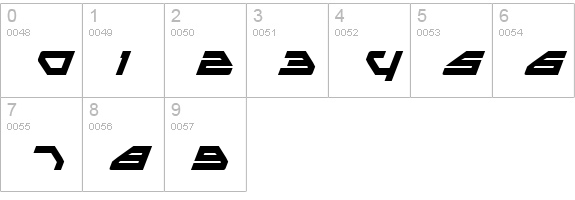
Spylord Bold Italic is a strong, high-contrast, italic variant in the Spylord typeface family \xE2\x80\x94 well suited to headlines, attention-grabbing titles, and strong calls-to-action.
Spylord Bold Italic font is a stunning display font that exudes power, strength, and a touch of mystery. This font is perfect for those seeking to make a bold statement with their design projects. Its bold and slanted letters command attention and convey a sense of authority. With its sleek and stylish design, Spylord Bold Italic font is versatile and can be used in a variety of creative projects. Whether you're designing a logo, creating eye-catching headlines, or crafting a poster, this font will add a touch of elegance and sophistication to your work. But what sets Spylord Bold Italic font apart is that it is not only visually captivating but also freely available to download at FontsMarket.com. This means that you can enhance your designs without having to worry about breaking the bank. It's the perfect choice for those who value both quality and affordability. The characters of Spylord Bold Italic font are meticulously crafted, with attention to detail evident in every curve and stroke. Its bold and italicized nature adds a sense of drama and intrigue, making it ideal for projects that require a touch of mystery or a hint of espionage. So whether you're a professional designer or a creative enthusiast, Spylord Bold Italic font is a must-have in your font collection. Its unique blend of boldness and elegance will surely make your designs stand out from the crowd. And the fact that it is freely available for download at FontsMarket.com makes it even more irresistible.